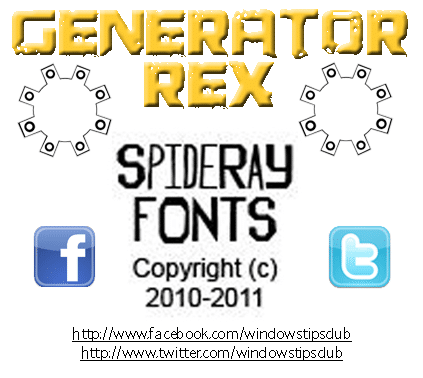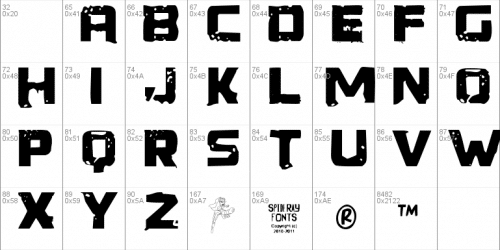
Generator Rex font was created for the shear enjoyment of it loved making 8 toothed the HQ gear. My 7 year old son loves to draw the mechanical tools and gears from this cartoon character.
He loves watching this character who can call upon many body enhancements he asked me to create this typeface so that he could use it on his drawings.